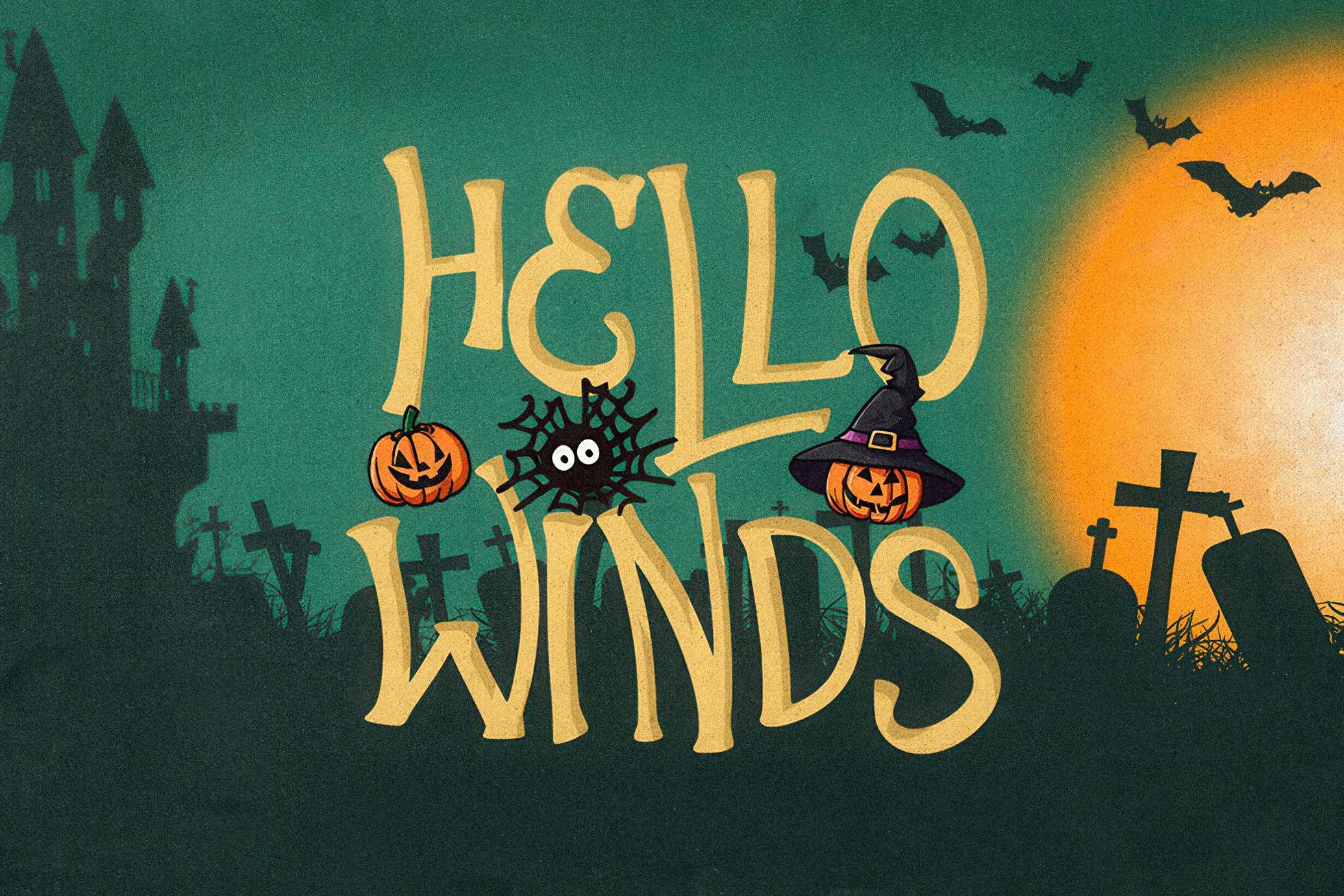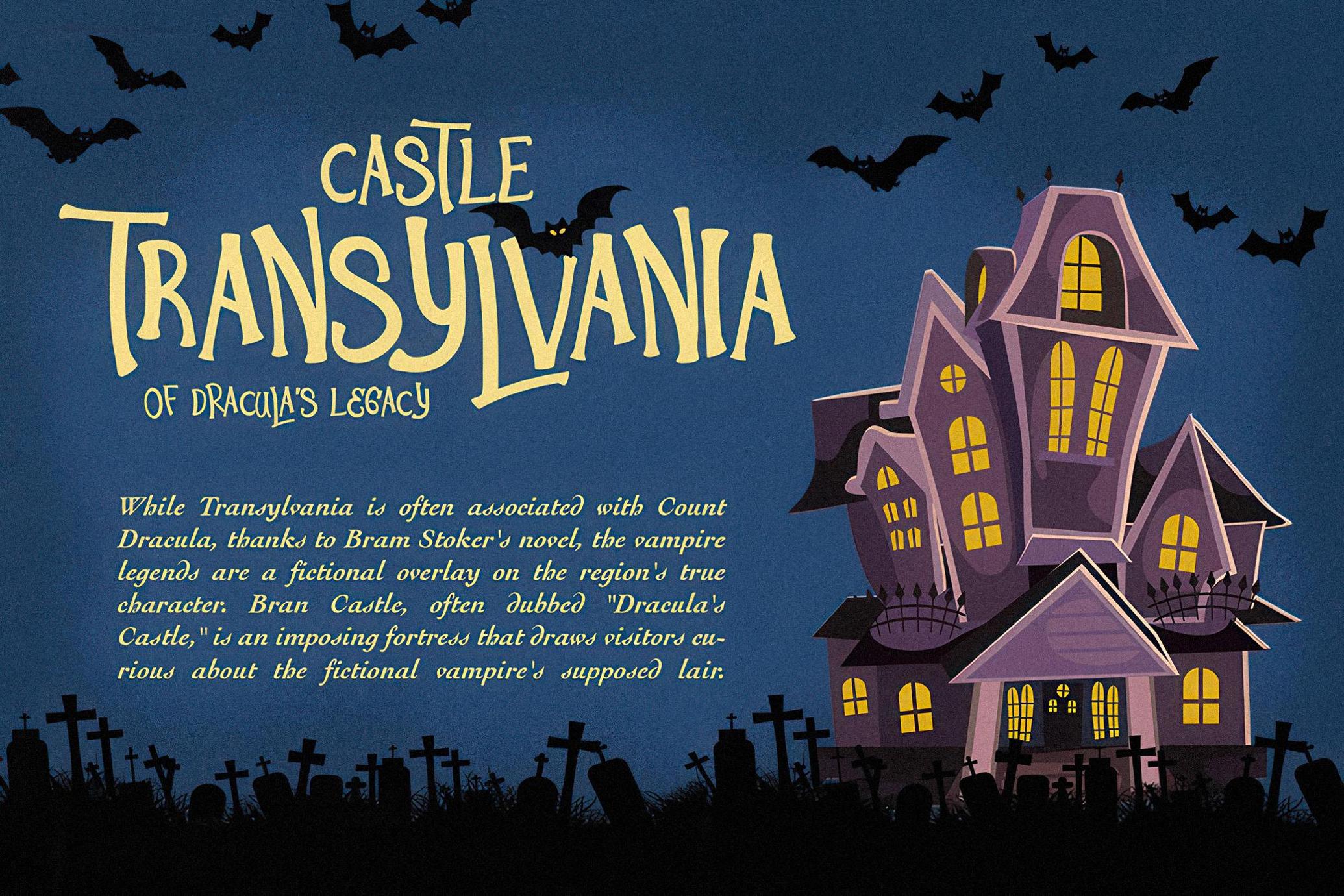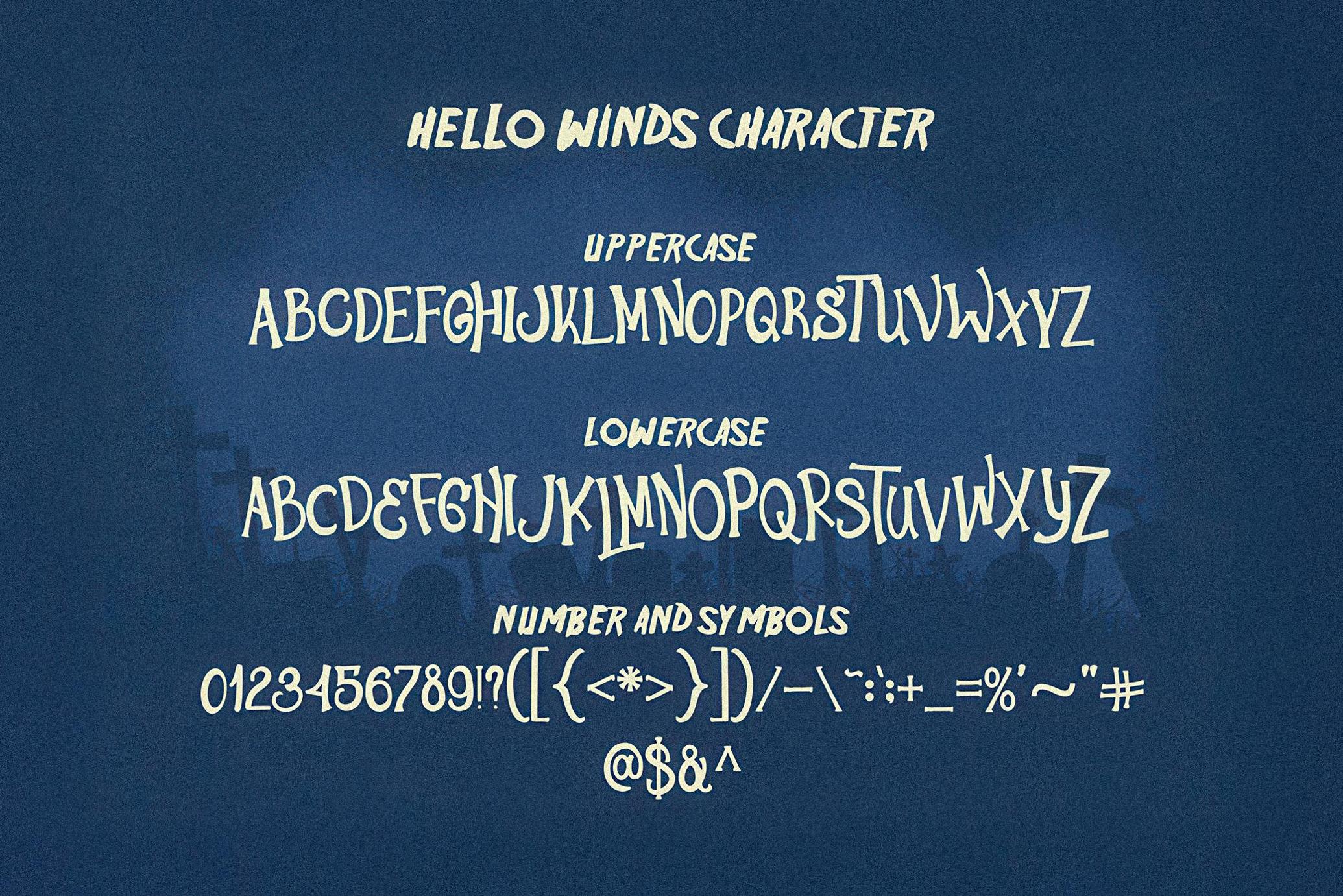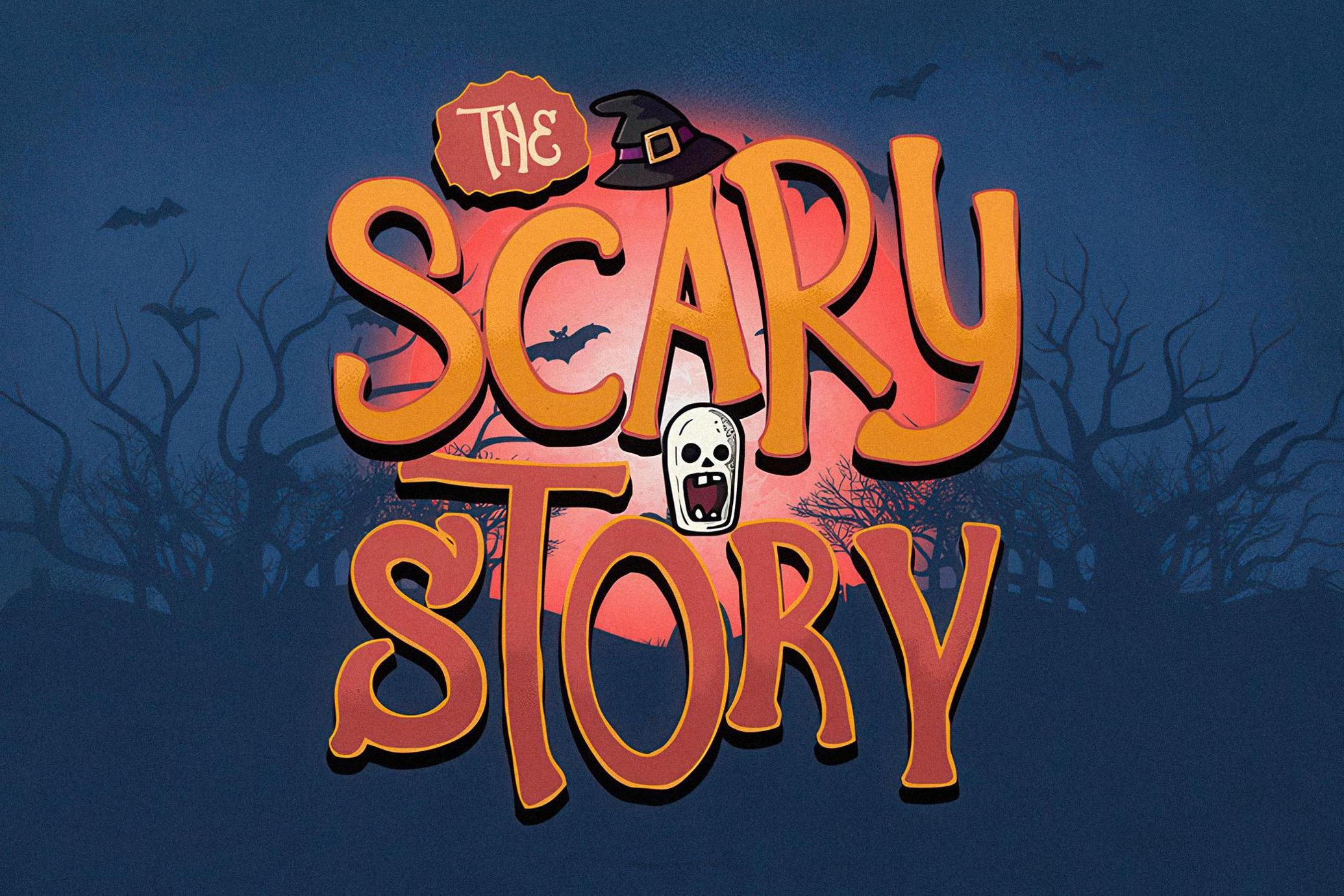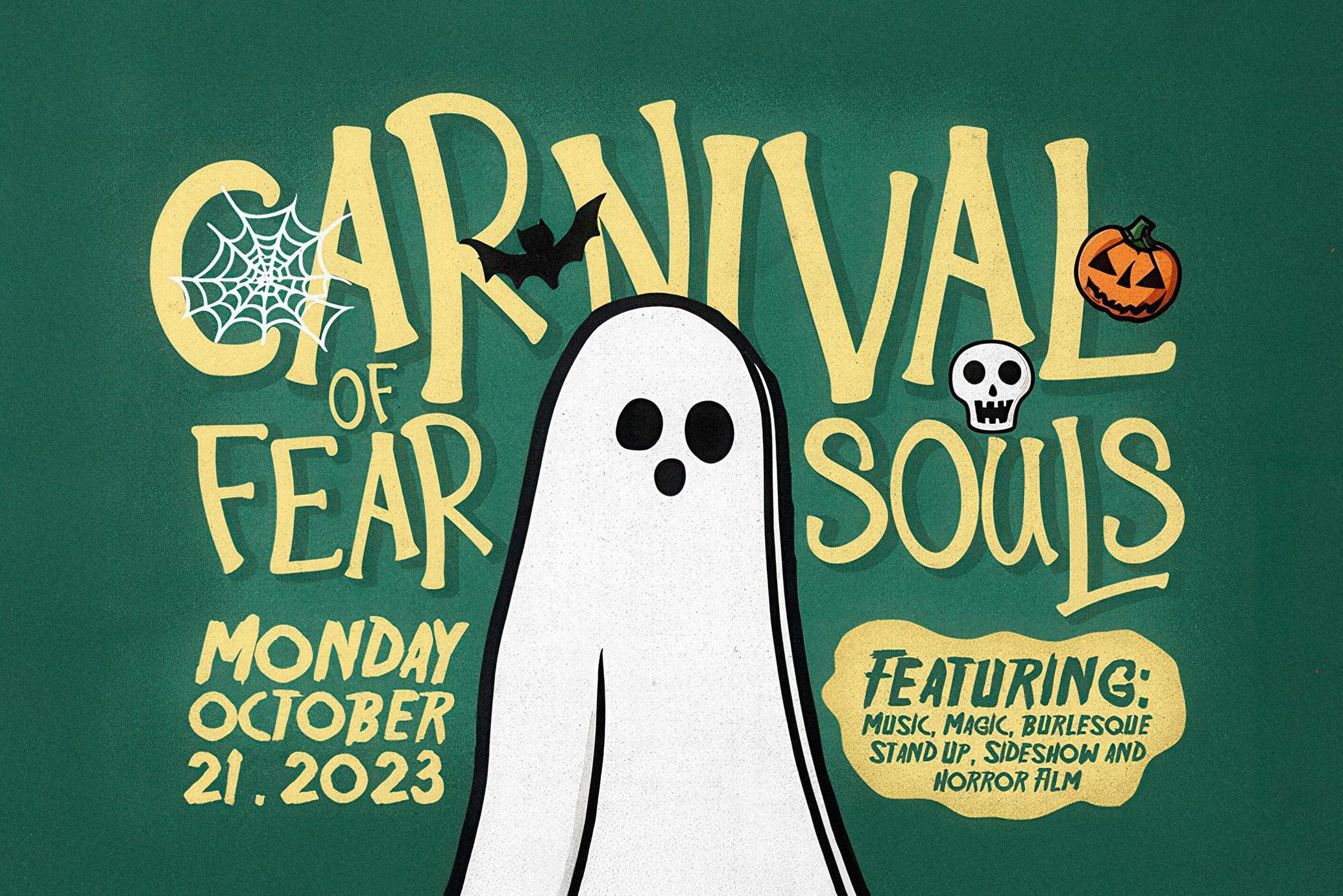
Hello Winds + Extras
Hello Winds
Introducing HELLO WINDS! A font that's ready to cast a spooky spell on your designs. This eerie display font is the perfect choice for all your Halloween-related projects and crafty ideas.
- Unique Letterforms